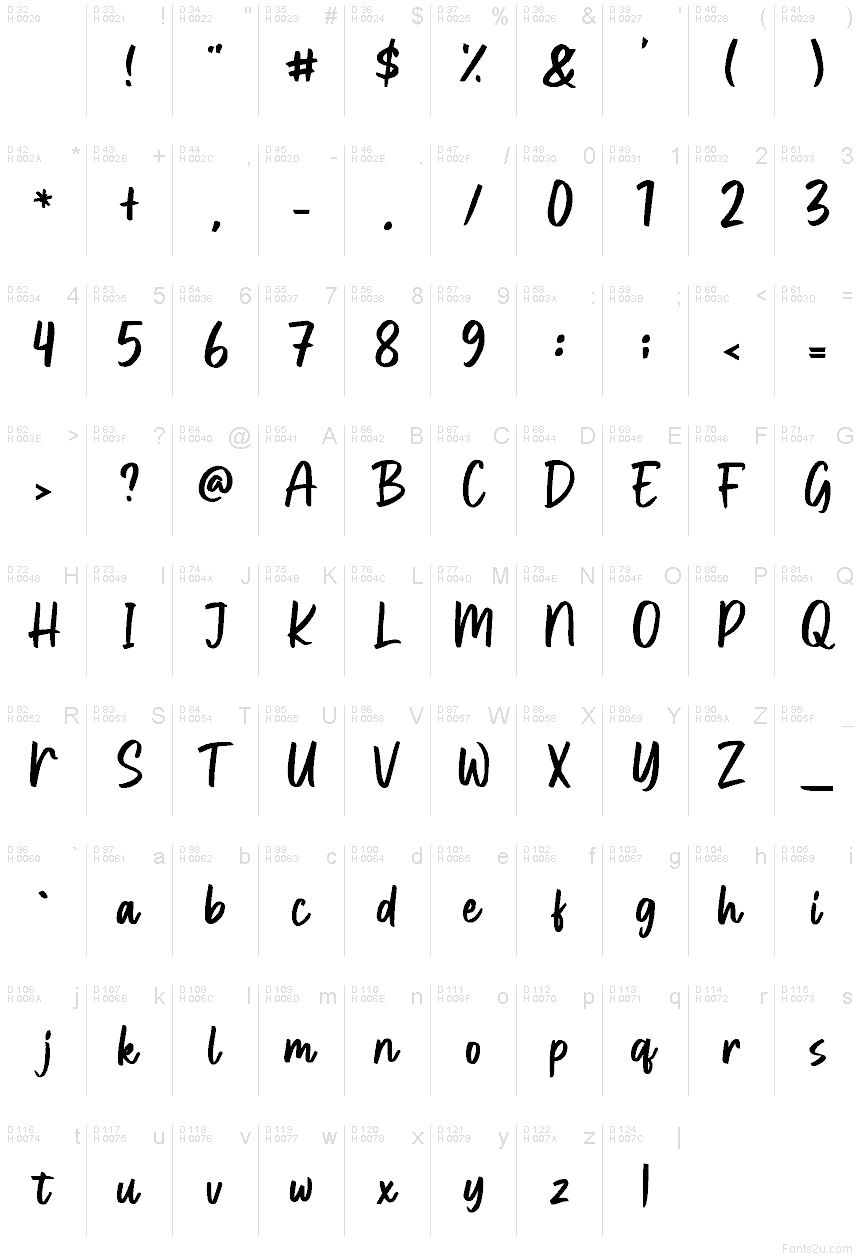
Buckets of Fireflies font by BlackFridayFont FMF is a free handwritten brush script font. Its easy swing, slightly slanted rhythm, and inky, dry-brush edges give you lively energy without sacrificing clarity. Strokes feel bold yet balanced, so headlines pop while longer lines stay readable-a rare sweet spot for a script with personality.
Using Buckets of Fireflies, your social posts, product packaging, greeting cards, event flyers, café menus, and YouTube thumbnails all take on a friendly, crafted voice. The spacing feels naturally steady, which keeps stacked lines from looking messy and lets logos or wordmarks stay crisp at small sizes. Pair this free font with a clean geometric sans to ground the brushy motion, and don’t be afraid to set it big and slightly tight for extra punch.